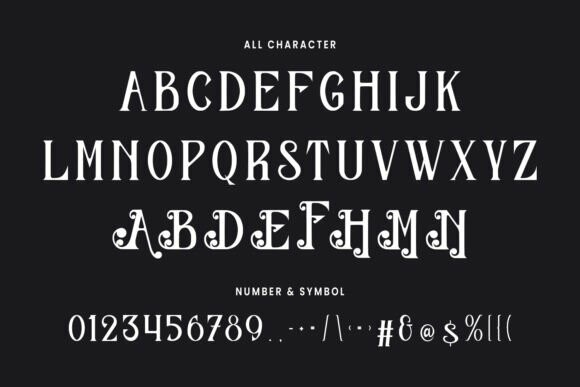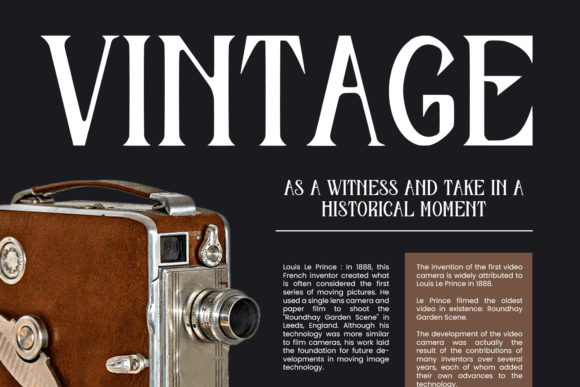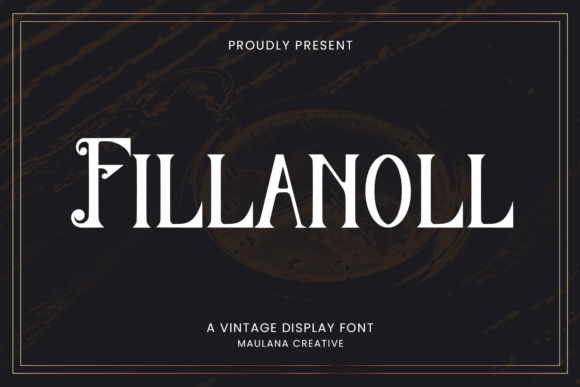
Fillanoll Font
Designer: Maulana Creative
Fillanoll Font is a vintage display font with a hand-lettered style, blending modern and classic typography with some great alternates. It takes inspiration from the early 1800s, adding a classic touch to the present day.